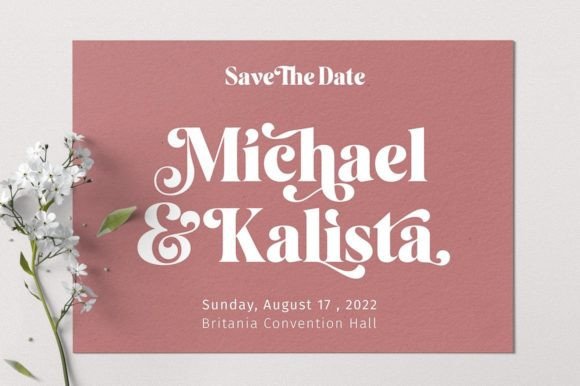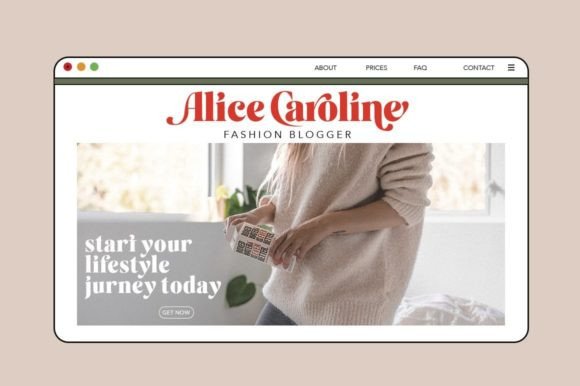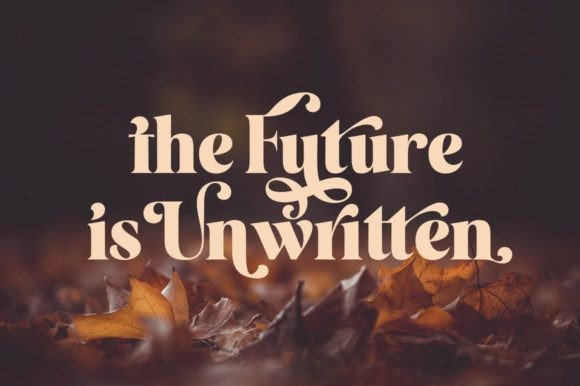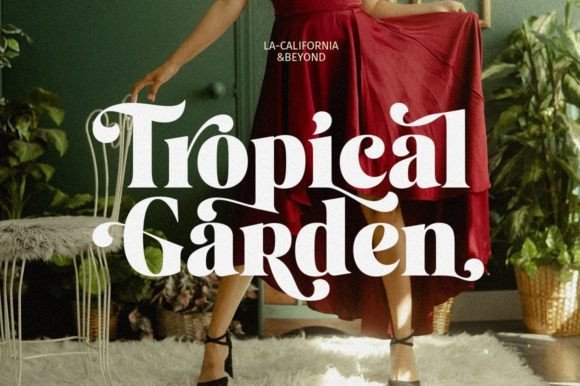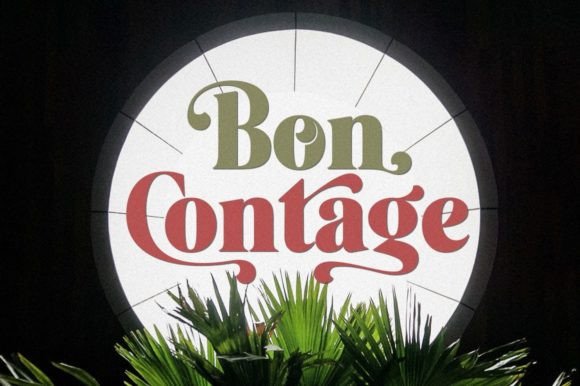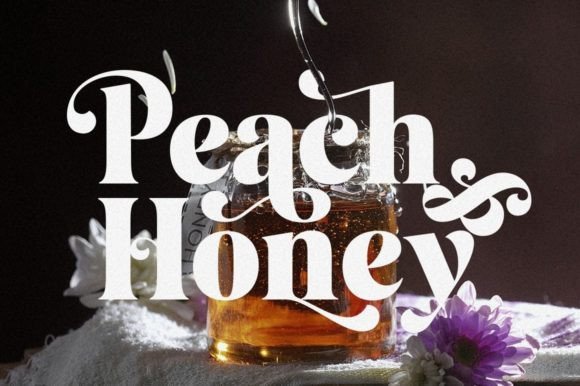
Introducing Floresta Font: Elevate Your Designs with a Touch of Modern Vintage Elegance
Are you on the hunt for a font that exudes sophistication, luxury, and a dash of nostalgia? Look no further than Floresta Font, a modern vintage serif font that is sure to elevate your designs to new heights. With its classy style, extensive OpenType features, and PUA encoding, Floresta is the perfect choice for designers and crafters looking to add a touch of elegance to their projects.
What is Floresta Font?
Floresta Font is a carefully crafted modern vintage serif font that combines the best of both worlds – the sophistication of traditional serif fonts and the playfulness of modern design. With its unique blend of classic and contemporary elements, Floresta is perfect for creating stunning designs that demand attention.
Key Features of Floresta Font
- Modern Vintage Style: Floresta Font boasts a unique modern vintage style that is both classy and sophisticated.
- OpenType Features: With access to OpenType features, you can easily access a wide range of alternate letters and ligatures to give your designs a luxurious display.
- PUA Encoding: Floresta Font is PUA encoded, making it easy to access all glyphs and swashes with ease.
- Large Selection of Characters: Floresta has various original characters to beautify your designs, giving you endless possibilities for creative expression.
Use Cases for Floresta Font
Floresta Font is an incredibly versatile font that can be used for a wide range of design projects, including:
- Branding Projects: Create stunning brand identities with Floresta Font’s unique and sophisticated style.
- Logo Design: Design memorable logos that stand out from the crowd with Floresta’s elegant and refined aesthetic.
- Clothing Branding: Elevate your fashion brand with Floresta Font’s luxurious and high-end feel.
- Packaging Design: Add a touch of elegance to your packaging designs with Floresta’s beautiful and intricate details.
- Magazine Headings: Create eye-catching magazine headings that demand attention with Floresta Font’s bold and sophisticated style.
- Advertising: Use Floresta Font to create stunning advertisements that showcase your brand’s personality and style.
- T-Shirts: Design unique and stylish t-shirts with Floresta Font’s elegant and refined aesthetic.
- Postcards: Create beautiful postcards that stand out from the crowd with Floresta Font’s intricate details and sophisticated style.
Why Choose Floresta Font?
With so many fonts available, why choose Floresta Font? Here are just a few reasons why Floresta stands out from the crowd:
- Unique Style: Floresta Font boasts a unique modern vintage style that is both sophisticated and elegant.
- Highly Versatile: Floresta Font can be used for a wide range of design projects, from branding and logo design to packaging and advertising.
- Easy to Use: With PUA encoding and OpenType features, Floresta Font is easy to use and customize, even for designers who are new to font design.
In conclusion, Floresta Font is a stunning modern vintage serif font that is sure to elevate your designs to new heights. With its sophisticated style, extensive OpenType features, and PUA encoding, Floresta is the perfect choice for designers and crafters looking to add a touch of elegance to their projects. Whether you’re working on a branding project, logo design, or packaging design, Floresta Font is sure to impress. So why wait? Download Floresta Font today and start creating stunning designs that demand attention!